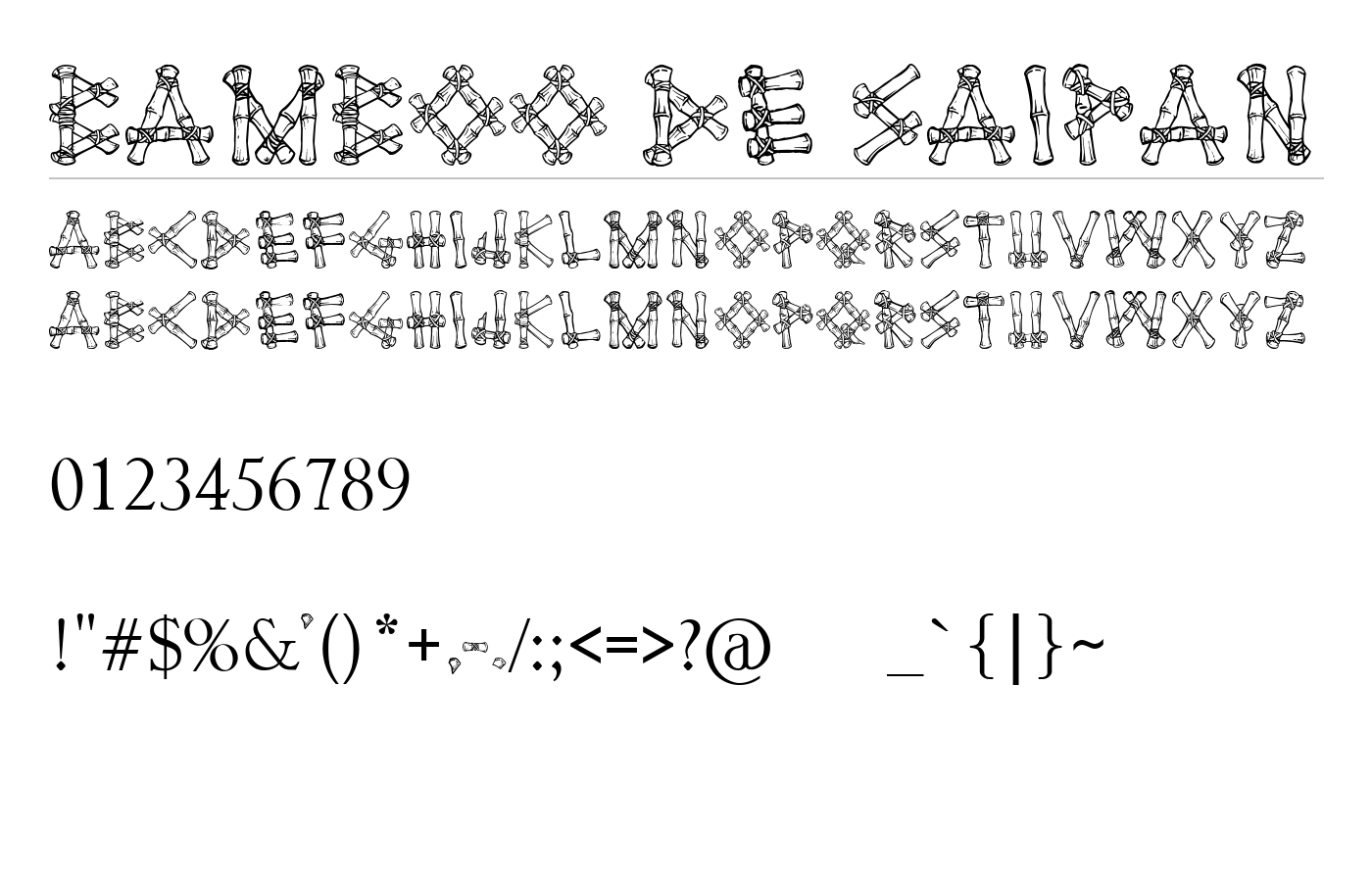
Bamboo de Saipan is a playful and decorative display font that mimics the look of bamboo sticks tied together, giving it a rustic and handcrafted feel. Its unique, intricate design with detailed line work makes it perfect for eye-catching headlines, logos, and branding that seeks a tropical, natural, or adventurous vibe. This font works best in creative projects where a bold, thematic statement is needed rather than for extended reading.
Bamboo de Saipan Font